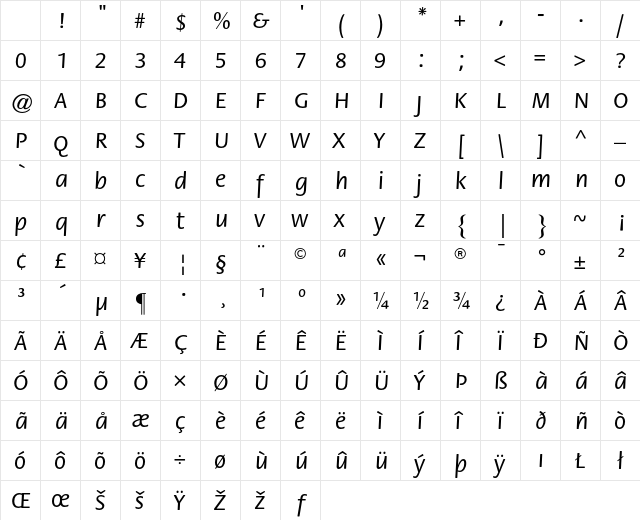
Complete ITC Flora Medium glyph index. Displaying only characters natively supported by ITC Flora Medium font.
ITC Flora is a composed and adaptable typeface that performs quietly and consistently across a wide range of design contexts.